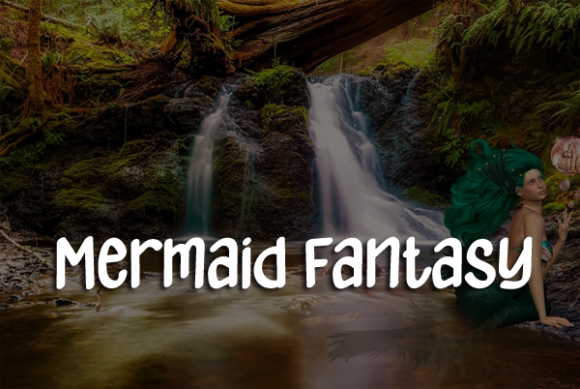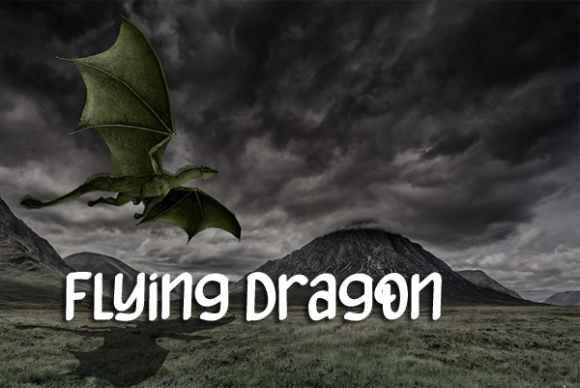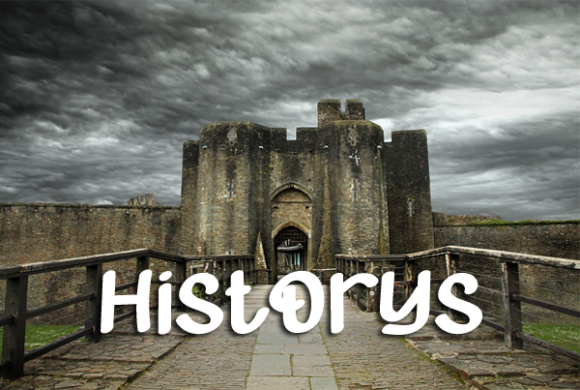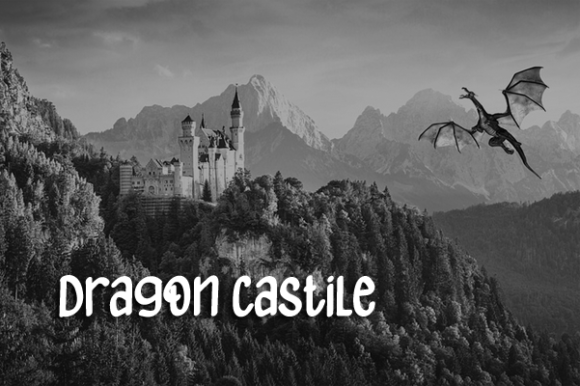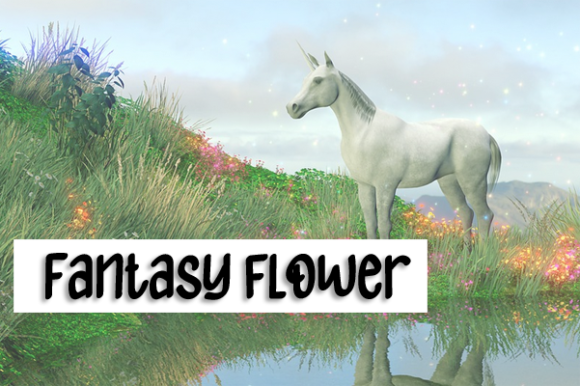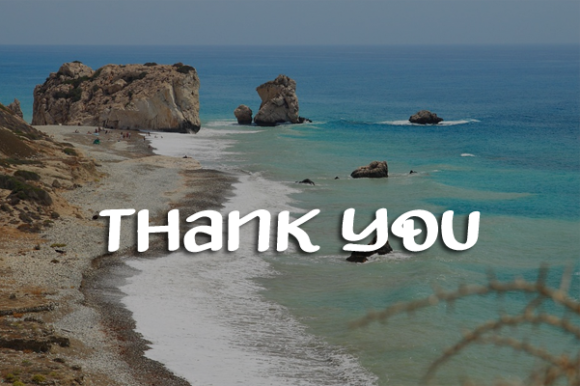
The Legend Font
About The Legend Font
The Legend is a sweet and friendly handwritten font. Its natural and unique style makes it incredibly fitting to a large pool of designs. The only limit is your imagination!